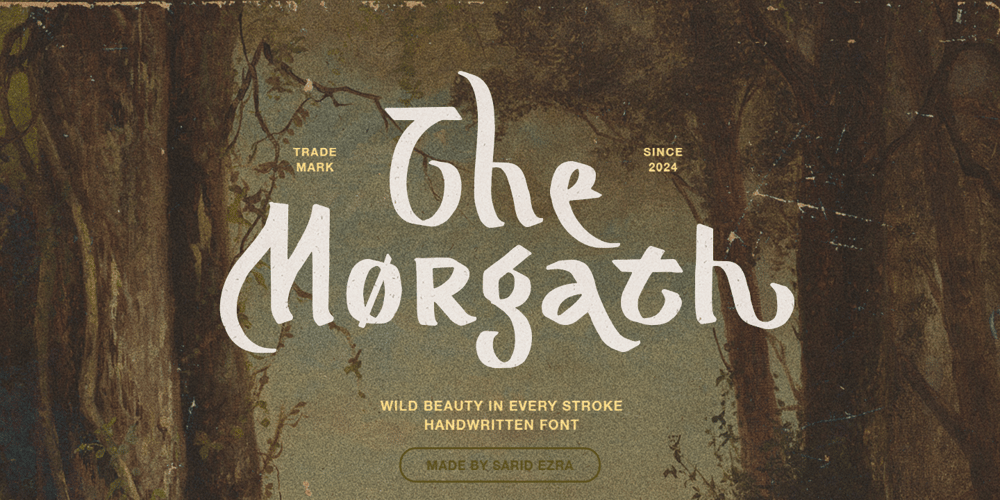
Morgath Font Family was designed by Sarid Ezra and published by Sarid Ezra. Morgath contains 1 styles and family package options. Morgath is a wild and stylish blackletter typeface that will make your project looks more vintage and raw. It comes with handwritten and rough feel, will make your design more handmade. There’s a lot alternates that you can use to make your project even more unique! You can use this font for quotes, logo, branding, or any project that need outdoor and adventure looks. Also comes with multilingual support!